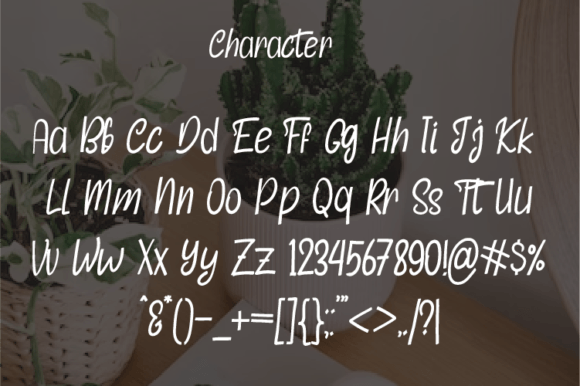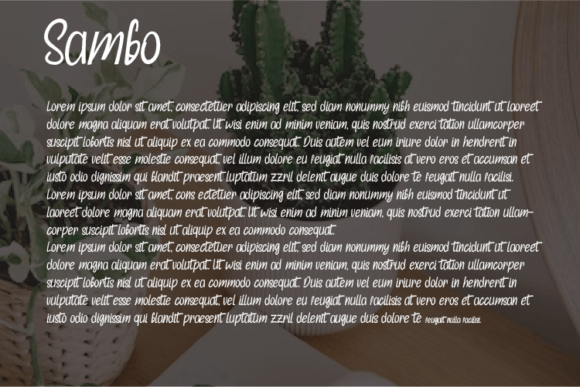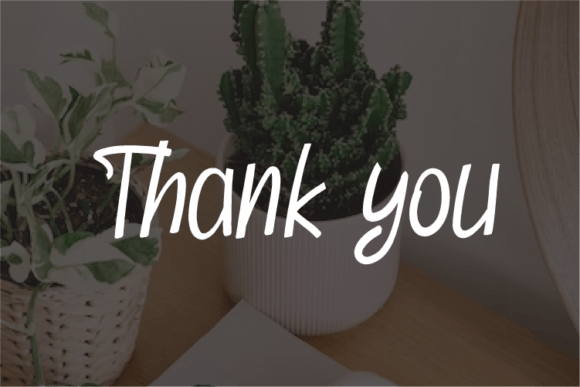
Introduction to Sambo Font
Have you ever stumbled upon a beautiful handwritten font that perfectly captures the essence of your creative project? For me, that moment came when I discovered the Sambo Font. Its simple yet modern design left me mesmerized, and I knew I had to share it with fellow designers.
As a valuable design resource, the Sambo Font is perfect for creating elegant and luxurious logos, book or movie title designs, fashion brands, magazines, and more. Its high-quality design makes it a go-to choice for designers who want to add a touch of sophistication to their projects. With a free download available, designers can easily incorporate this stunning font into their creative work.
Whether you’re working on a high-end fashion brand or a romantic novel, the Sambo Font is an excellent choice. Its transparent background allows for seamless integration with any design, making it a versatile and creative solution for designers.
Sambo Font Key Features
- Designed to be scalable, with a resolution of 300 DPI, making it suitable for print and digital applications.
- Unique characteristics include a bold and playful style, making it perfect for adding a touch of personality to any creative project.
Honest Review: Sambo Font
As a designer, I’m always on the lookout for high-quality design resources to elevate my creative projects. The Sambo Font has caught my attention, and I’m excited to share my honest review with you.
- ✨ Unique and playful characters that add a touch of personality to any design project.
- ✨ High-quality font files that are perfect for both digital and print designs.
- ✨ Transparent background, allowing for easy customization and composition.
- ⚠️ Limited font styles and weights available, which may not be suitable for more complex design projects.
- ⚠️ Not as versatile as some other fonts, which may limit its use in certain creative projects.
Overall, the Sambo Font is a great addition to any designer’s toolkit. Its unique characters and high-quality files make it perfect for adding a touch of personality to creative projects. While it may have some limitations, I believe it’s definitely worth exploring further.
Introduction to Sambo Font
The Sambo Font is a high-quality design resource perfect for any creative project. This free download offers a unique and versatile font that can be used in a variety of settings.
Tips for Getting the Most Out of Sambo Font
For the best results, use the Sambo Font on a transparent background to create a clean and modern look. Experiment with different font sizes and styles to add visual interest to your project.
Common Use Cases for Sambo Font
The Sambo Font is perfect for use in a variety of creative projects, including logos, graphics, and presentations. Its unique design and high-quality design make it a valuable resource for any designer or artist.